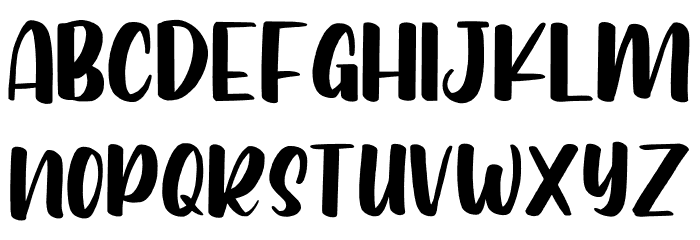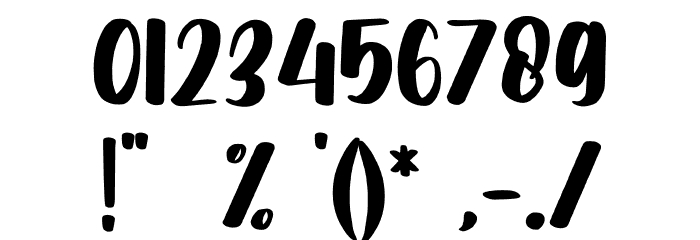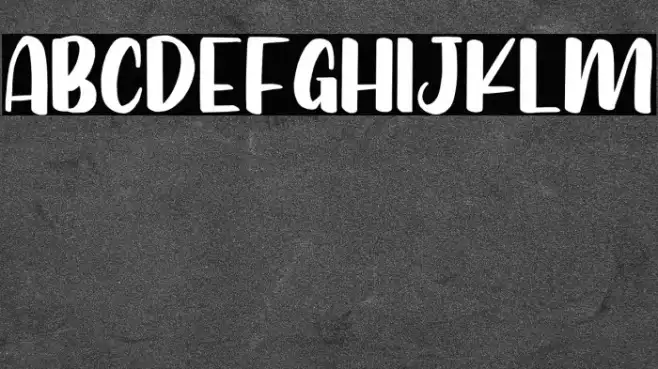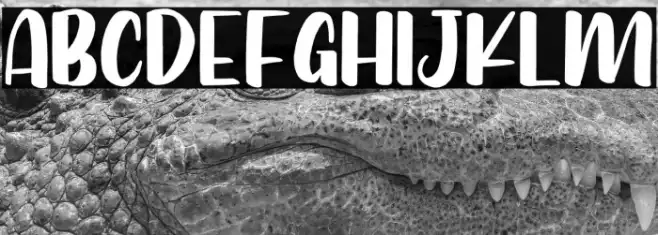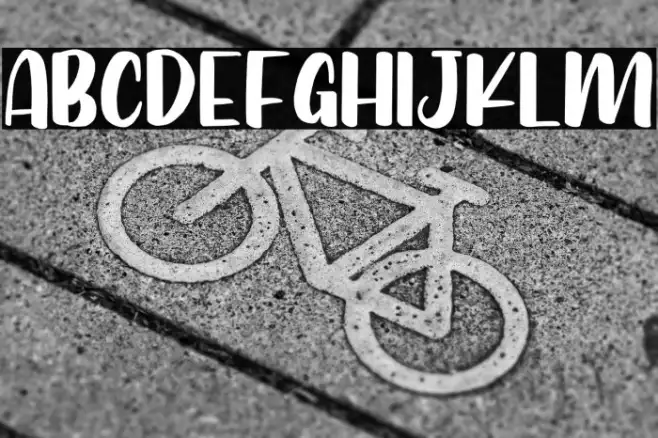
Bunny Baby Font
This playful and bold font features a handwritten style with smooth, rounded edges and a lively character. The uppercase and lowercase letters maintain a consistent flow, giving a sense of movement and energy. The numbers and special characters are equally dynamic, complementing the overall aesthetic. The font's thickness varies slightly, adding a touch of uniqueness to each character. Its casual and friendly appearance makes it suitable for a variety of creative projects.
A bold, playful handwritten font with smooth, rounded edges.
- Proposed Projects: Ideal for children's books, playful branding, greeting cards, and social media graphics.
- Overall Style: Playful